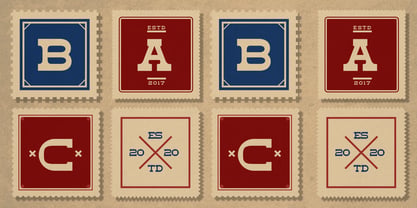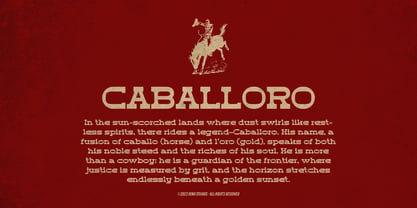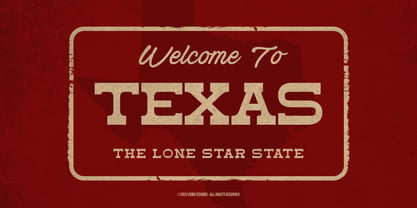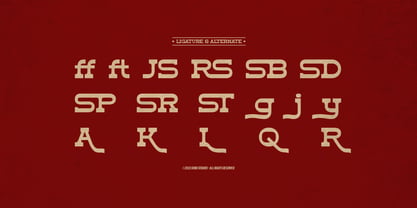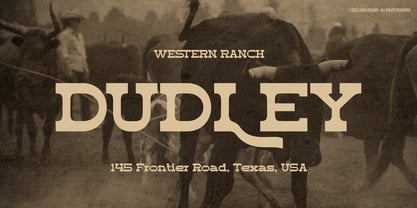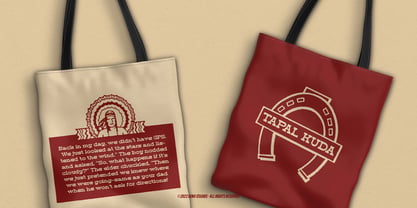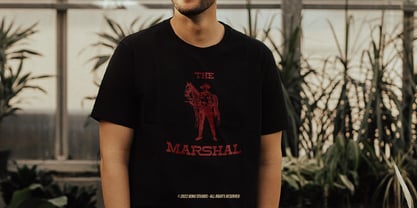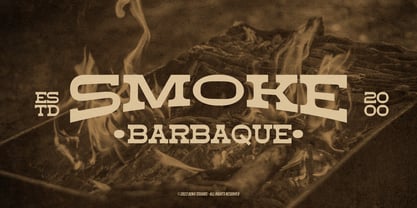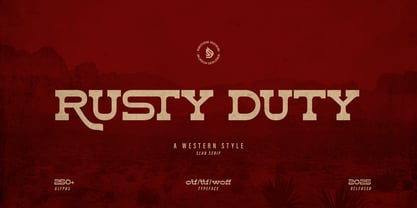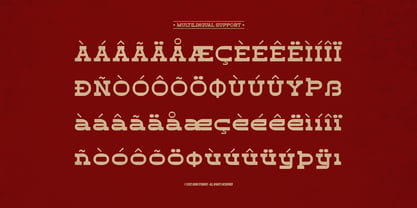
Rusty Duty
por Denustudio
A família de fontes Rusty Duty foi desenhada por Dede Nugraha e publicada pela Denustudio. Rusty Duty contém 2 estilos e opções de pacote familiar. Saiba mais sobre esta família
Rusty Duty | Western Style, from Denustudios, suitable for any projects such as: logos, branding projects, homeware designs, product packaging, mugs, quotes, posters, shopping bags, t-shirts, book covers, name card, invitation cards, greeting cards, label, photography, watermark, special events, and all your other lovely projects that need Western Style a taste.
Designers: Dede Nugraha
Fundição: Denustudio